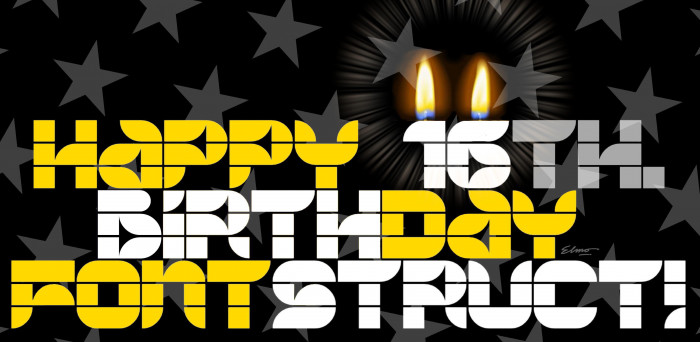
• My little personal and humble tribute to our Astonishing FontStruct on its 16th birthday, full of admiration and respect for the Great Creator & Big Chief Rob Meek and all fontstructors, big and small, who used it during these amazing years! LONG LIVE FONTSTRUCT!!!
My little personal and humble tribute to our Astonishing FontStruct on its 16th birthday, full of admiration and respect for the Great Creator & Big Chief Rob Meek and all fontstructors, big and small, who used it during these amazing years! LONG LIVE FONTSTRUCT!!!
Damn nice one compa.. you've put an exclamation mark on the term "experimental simplicity"
And I don't know if its because I smoked too much today, but I see a resemblance to the flame-shape in every glyph...?!
Nonetheless very cool and fresh addition
What a refreshing take on Structurosa! Love those funky counters and the sample candles!
no small letters :(
a cool cursive one